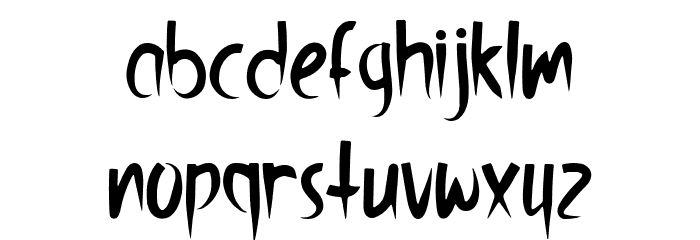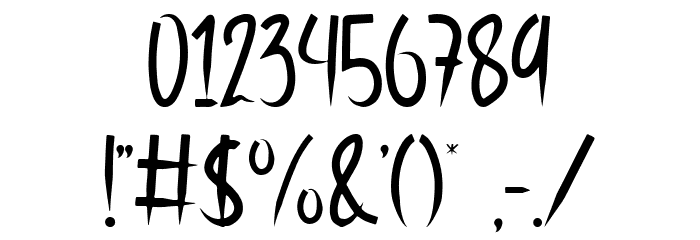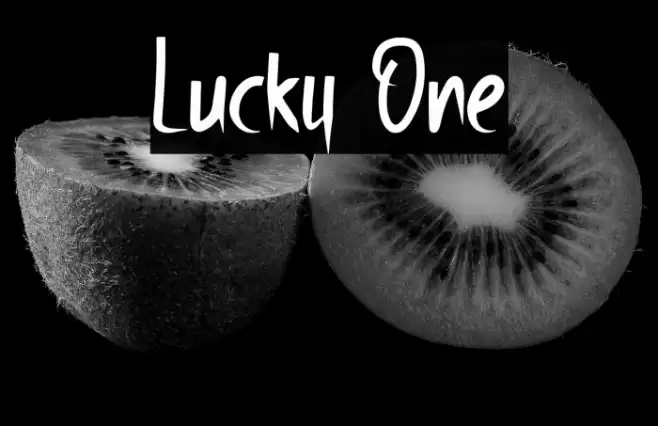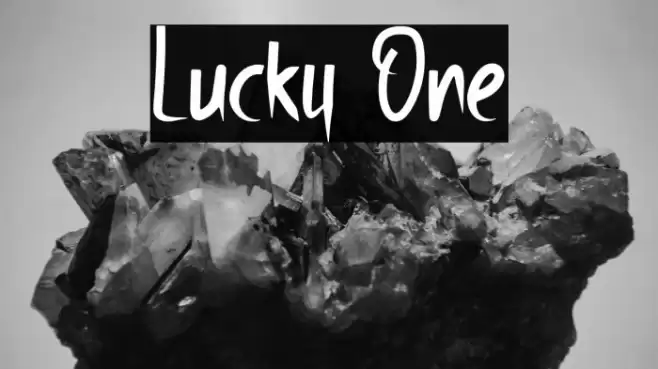
Lucky One Font
This font features a playful and dynamic style with a handwritten appearance. The characters are slightly slanted, giving a sense of movement and energy. The strokes vary in thickness, adding a lively and informal touch. The uppercase letters are bold and prominent, while the lowercase letters maintain a consistent flow. Numbers and special characters are designed to match the overall whimsical aesthetic, making this font suitable for creative and casual projects.
A playful, handwritten-style font with dynamic strokes.
- Proposed Projects: Ideal for greeting cards, playful branding, children's books, and creative posters.